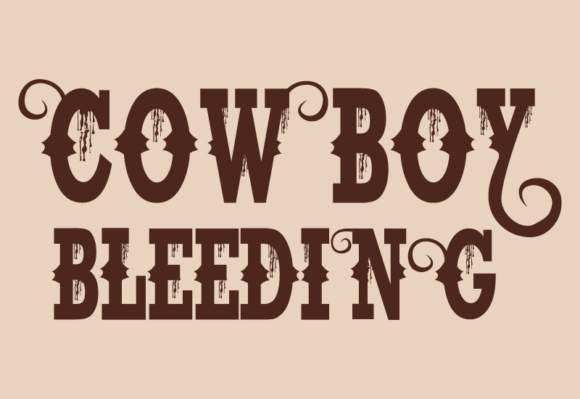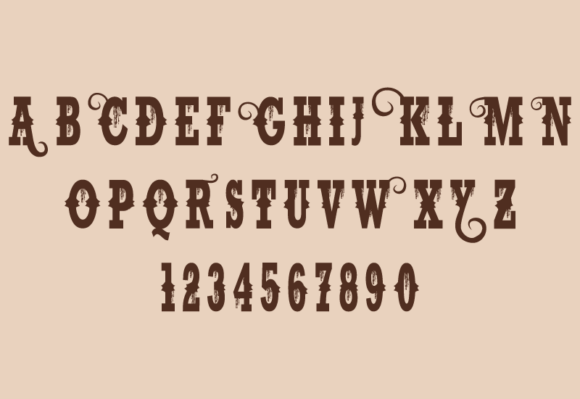
The Wild West of Typography: Discovering the Cowboy Bleeding Font
Have you ever been brainstorming a design project and suddenly found yourself transported to the open ranges of the American West? Maybe it’s the rustic charm of an old saloon or the majestic grandeur of a sunset over the rolling hills. Whatever the spark, you know that you need a font that captures the essence of the Wild West. For designers seeking a rugged and vintage aesthetic, look no further than the Cowboy Bleeding Font.
This bold decorative typeface is inspired by the classic designs of the cowboy era, with a look that’s equal parts tough and timeless. Whether you’re creating a logo for a country music festival, a poster for a rodeo, or simply want to add some grit to your branding, the Cowboy Bleeding Font is the perfect addition to your design toolkit.
Cowboy Bleeding Font Key Features
- Font Family: Cowboy Bleeding Font is a unique, hand-drawn typeface designed to evoke a sense of the American West.
- Unique Characteristics: The font’s hand-drawn style and distressed texture give it a rugged, worn look that’s perfect for creating a sense of nostalgia and authenticity.
Cowboy Bleeding Font Review
I recently had the chance to work with the Cowboy Bleeding Font, and I must say, it’s an interesting addition to any design project. Here are my honest thoughts:
- The font’s distressed, hand-drawn look is perfect for adding a touch of rustic charm to your designs.
- It’s highly versatile and can be used for various applications, from posters to branding materials.
- The font’s bold, eye-catching style makes it ideal for grabbing attention and conveying a sense of urgency.
- The font’s uneven letterforms and inconsistent spacing can make it challenging to read, especially in smaller font sizes.
- The distressed look can sometimes be overwhelming or distracting, especially in designs that require a more subtle approach.
Overall, I think the Cowboy Bleeding Font is a great choice for designers who want to add a touch of ruggedness and personality to their projects. While it may not be suitable for every design, it’s definitely a unique and attention-grabbing option that can help you stand out from the crowd.
Cowboy Bleeding Font is a versatile font that can be used in a variety of contexts, including:
- Western-themed designs, such as cowboy-themed parties or country music posters.
- Distressed or vintage-style designs, such as old-fashioned signs or worn leather textures.
- Unique and eye-catching headlines or titles.